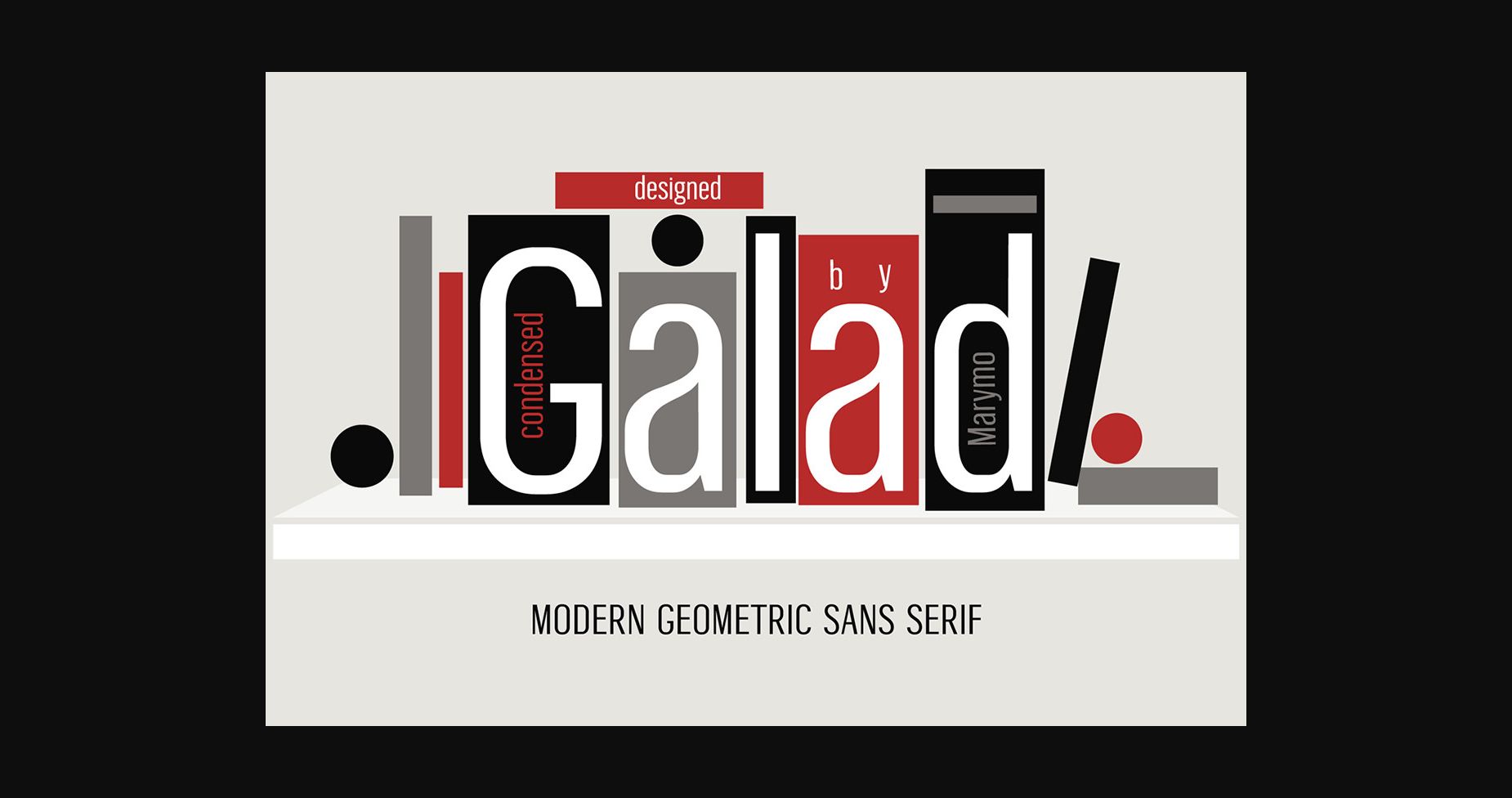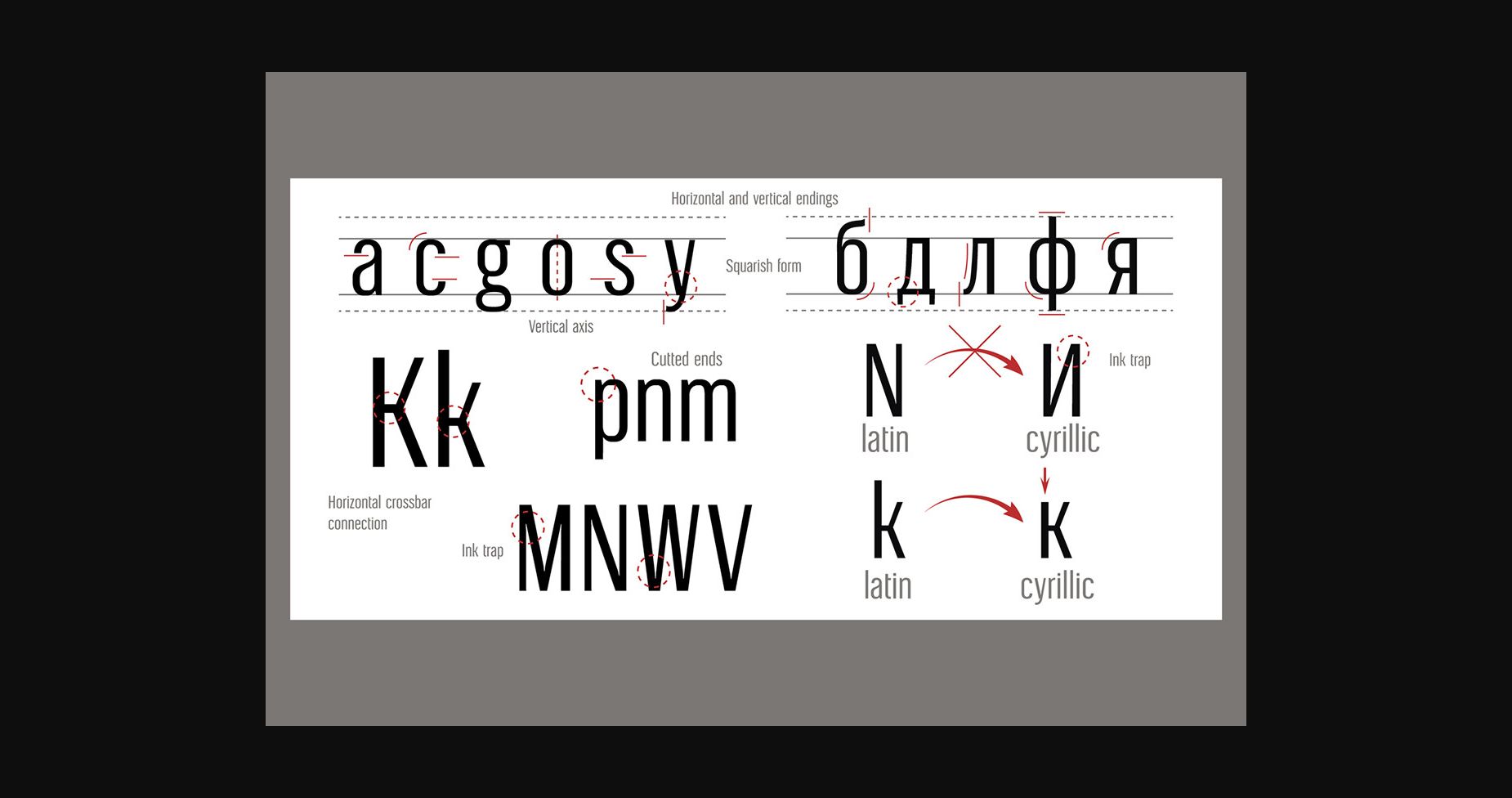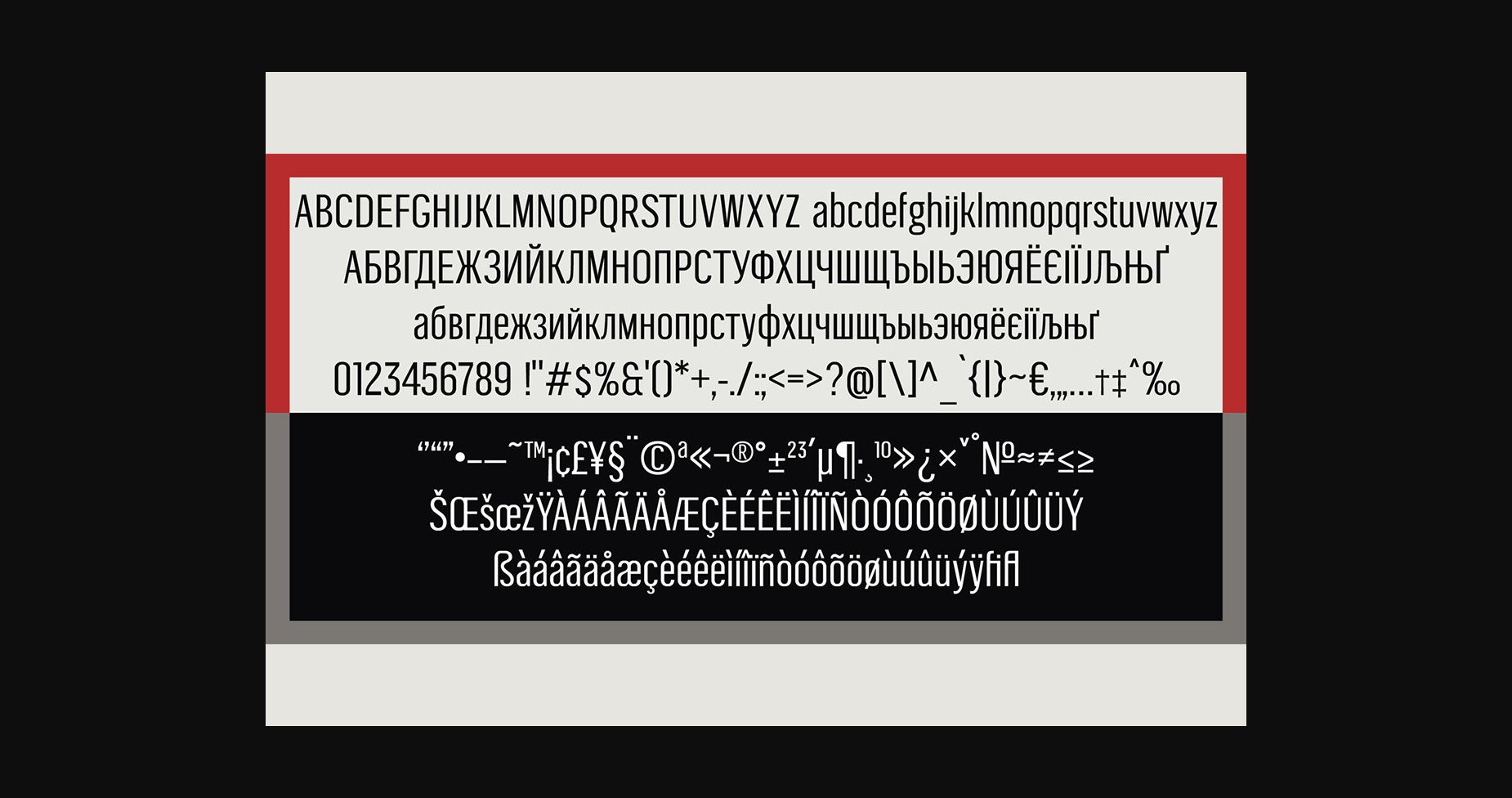
Galad Font
About Galad Font
Galad is a modern, geometric looking sans serif font. This font is ideal for writing web designs, business cards, or pretty much anything else that requires a unique touch.